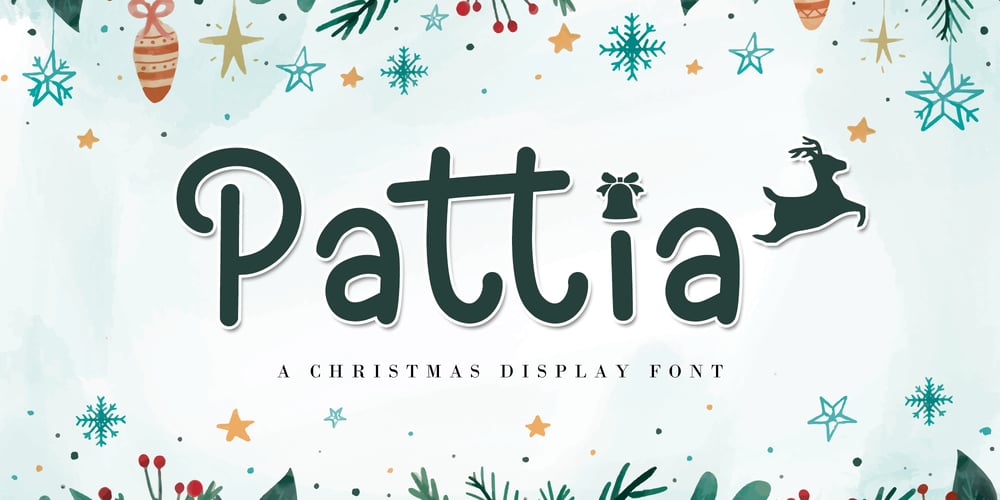
Pattia Font Family was designed by Agung Eko Nugroho and published by AEN Creative Studio. Pattia contains 2 styles and family package options. Pattia is a joyful and festive display font. It is ideal for Christmas Holiday-themed greeting cards and for any crafting project. This font is PUA encoded which means you can access all of the glyphs and swashes with ease!